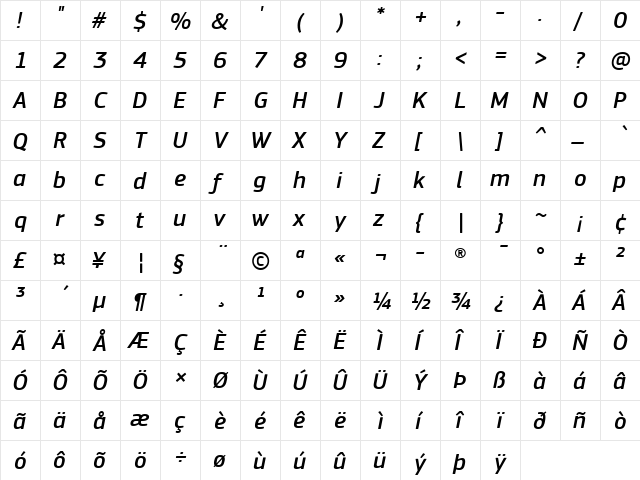
PF Square Sans Pro Medium Italic
Design Context for PF Square Sans Pro Typeface
PF Square Sans Pro is a composed and adaptable typeface that performs quietly and consistently across a wide range of design contexts. Its italic angle brings a sense of urgency and motion to the letterforms.
Pro Tip: Use PF Square Sans Pro for emphasis, pull quotes, and subheadings where its slanted energy can add rhythm to the layout.